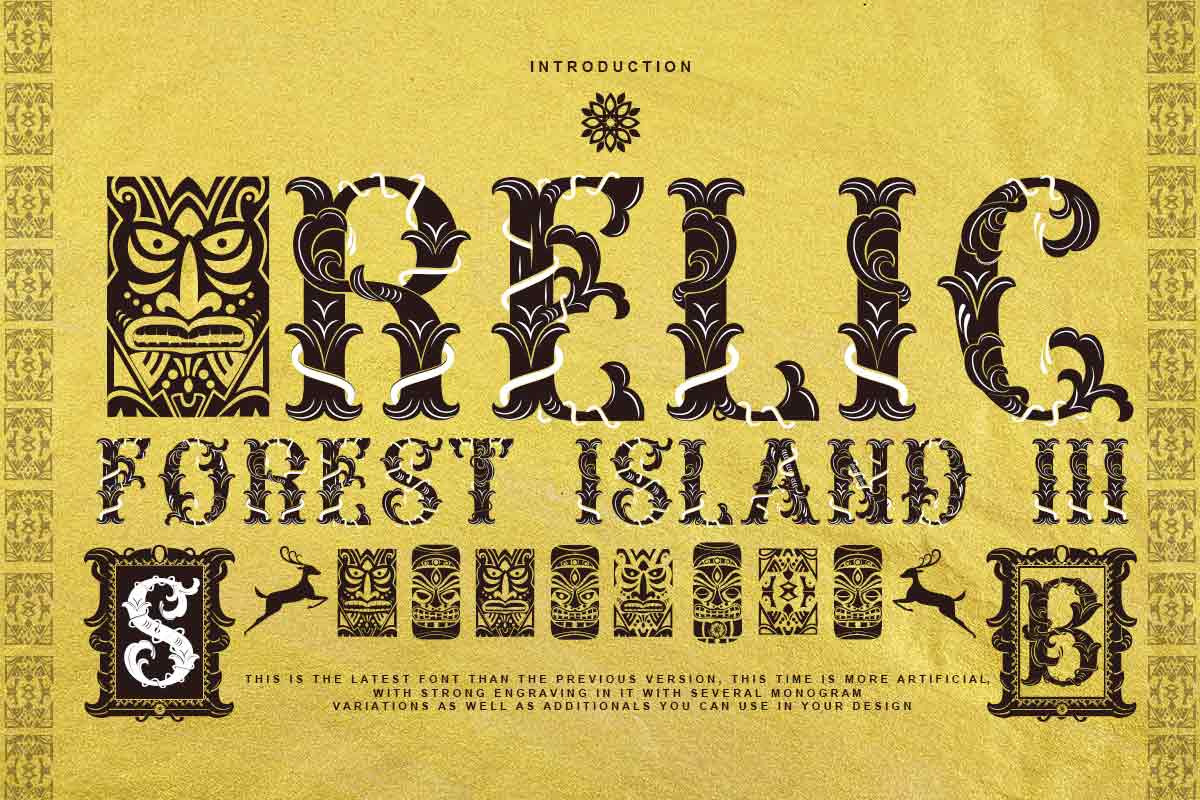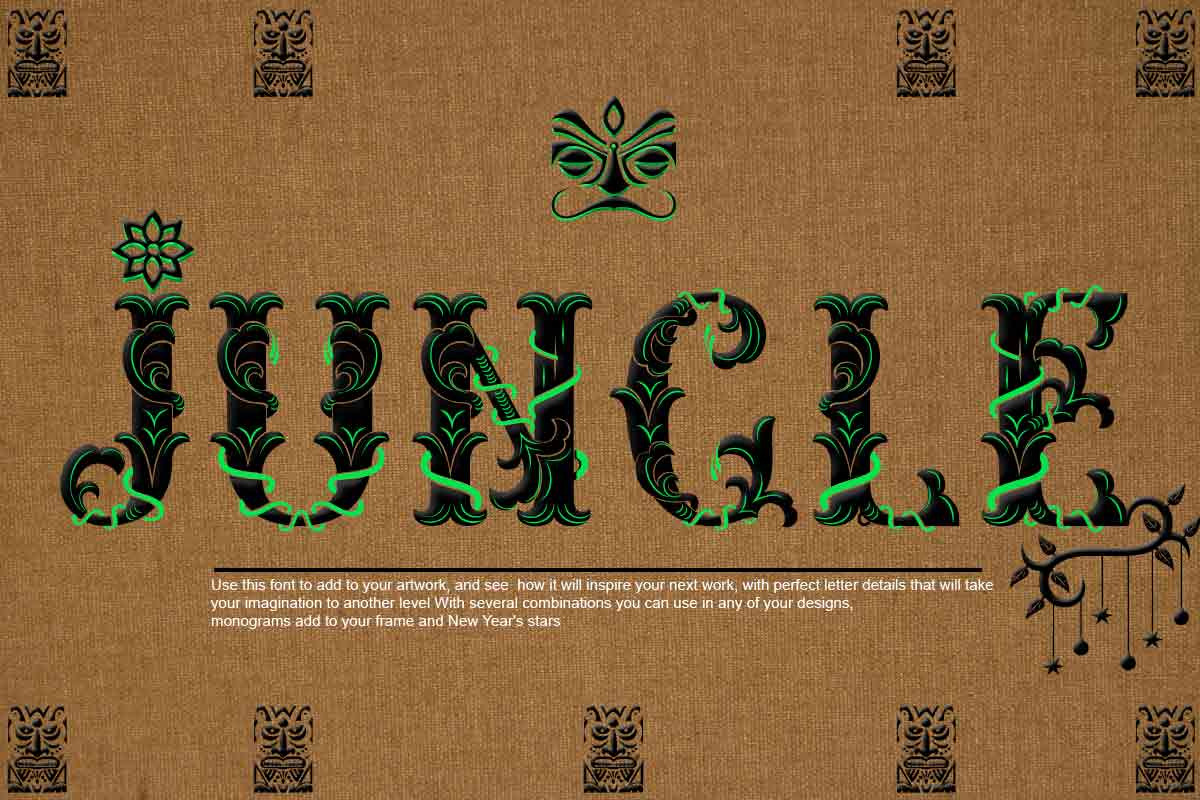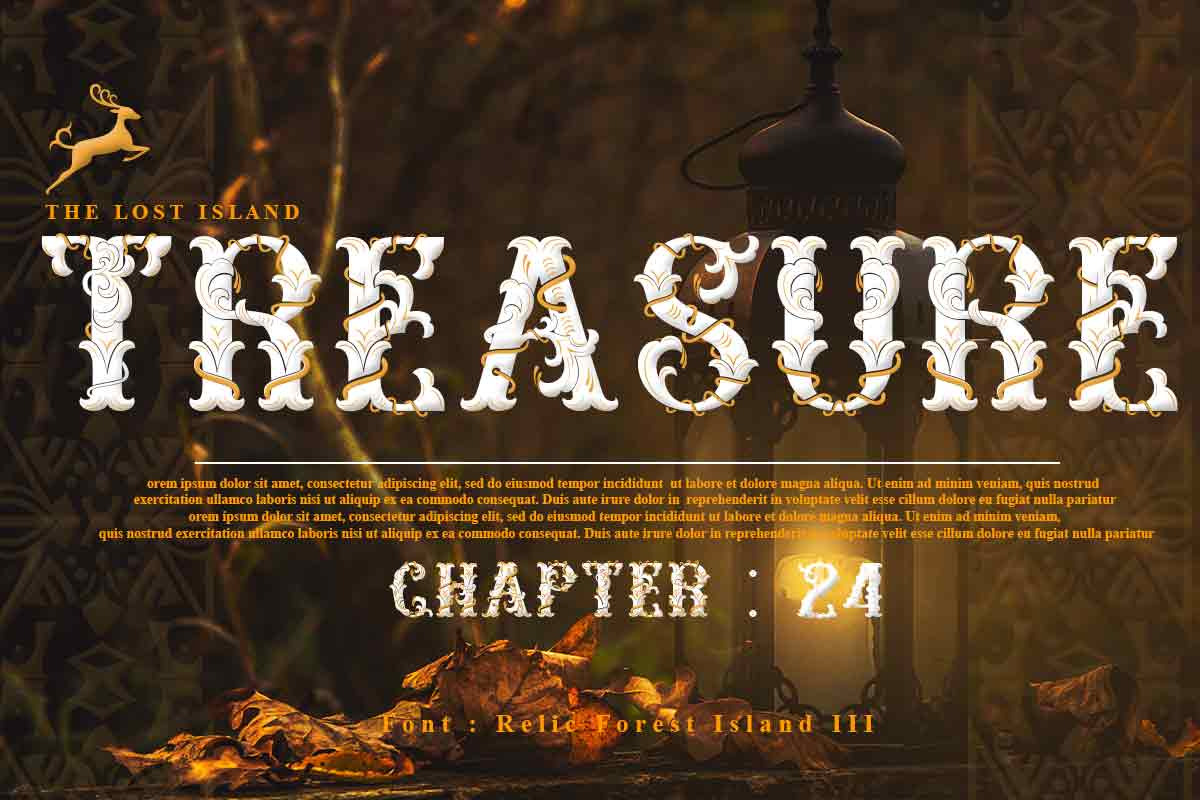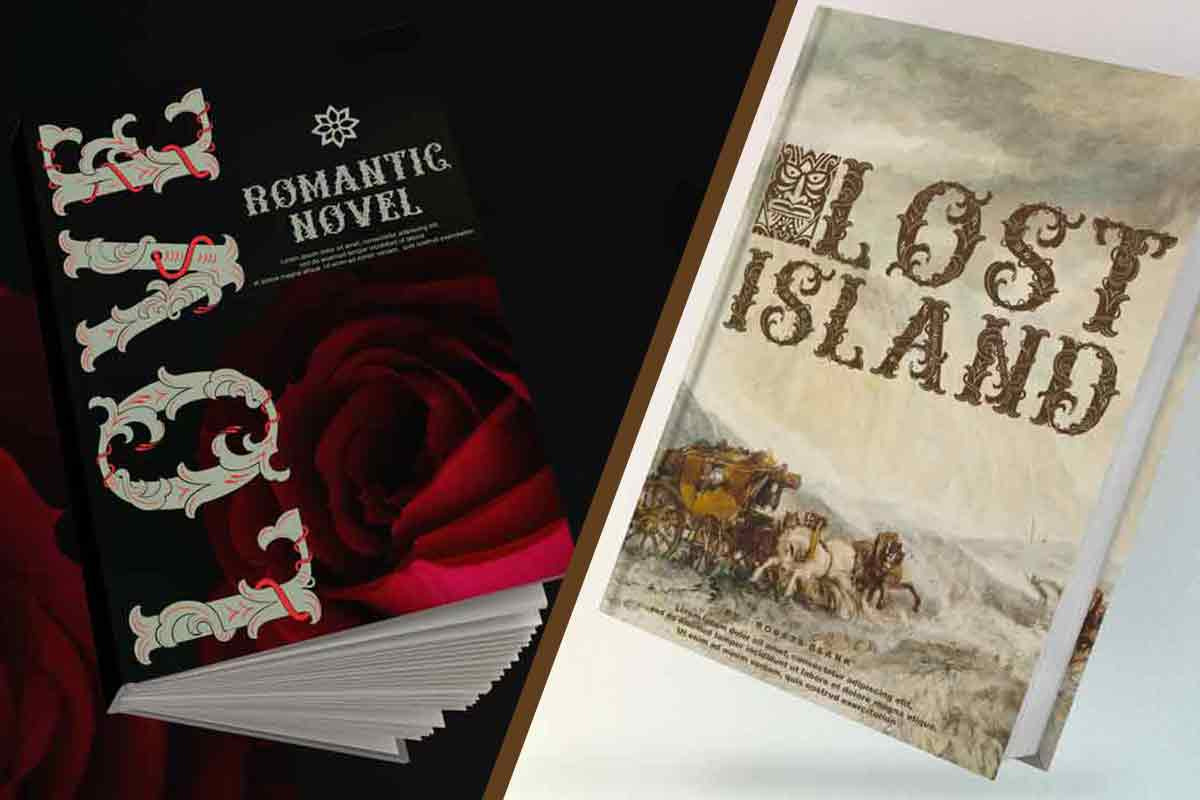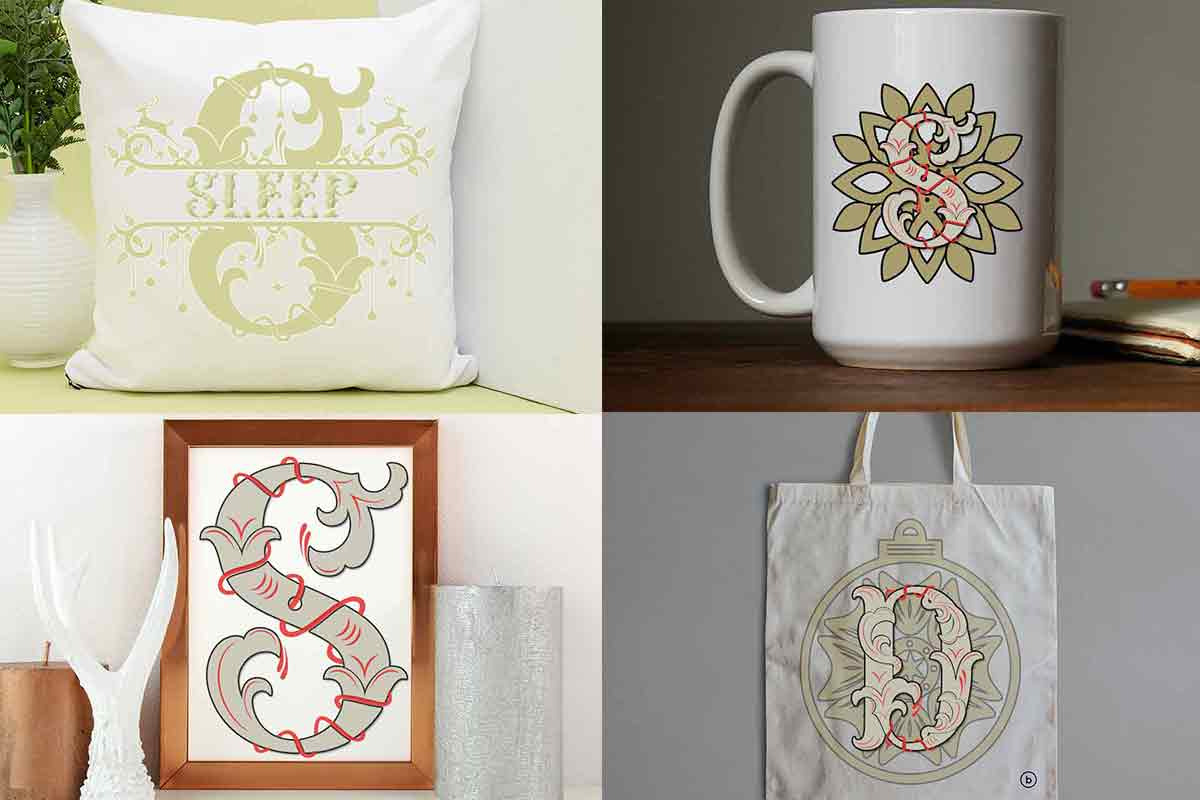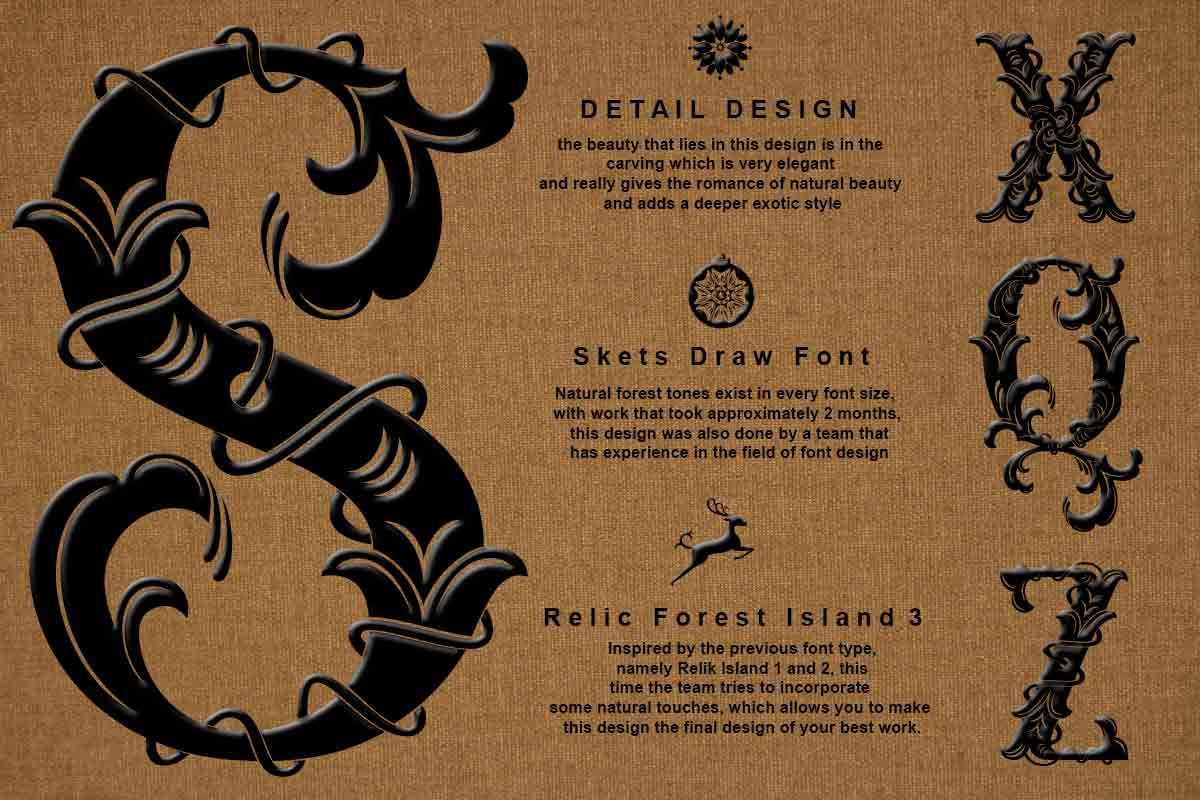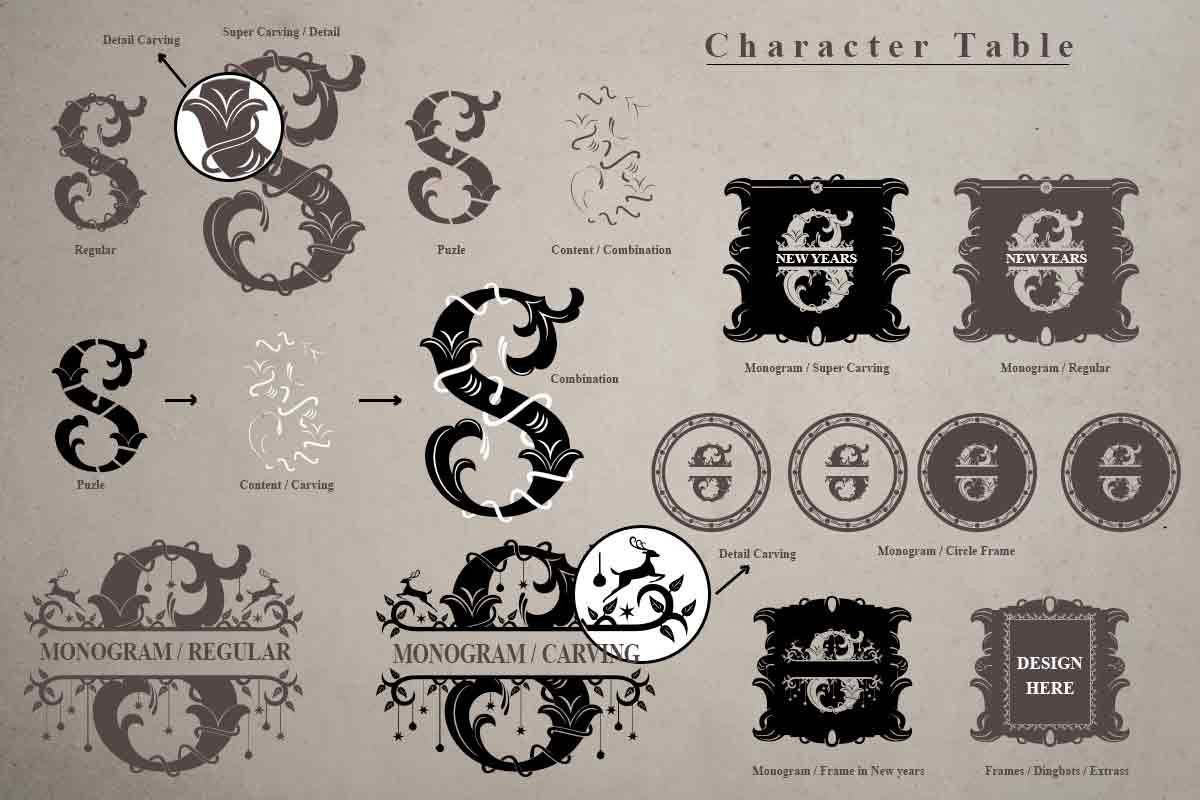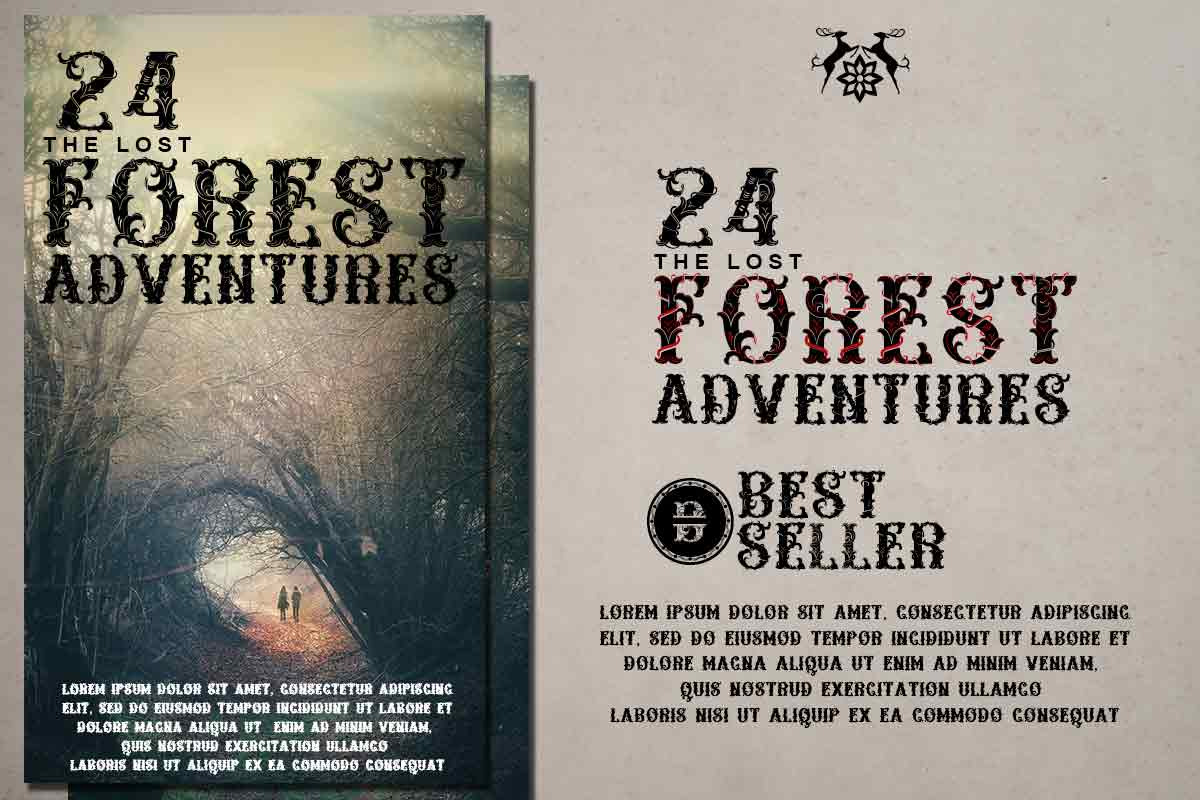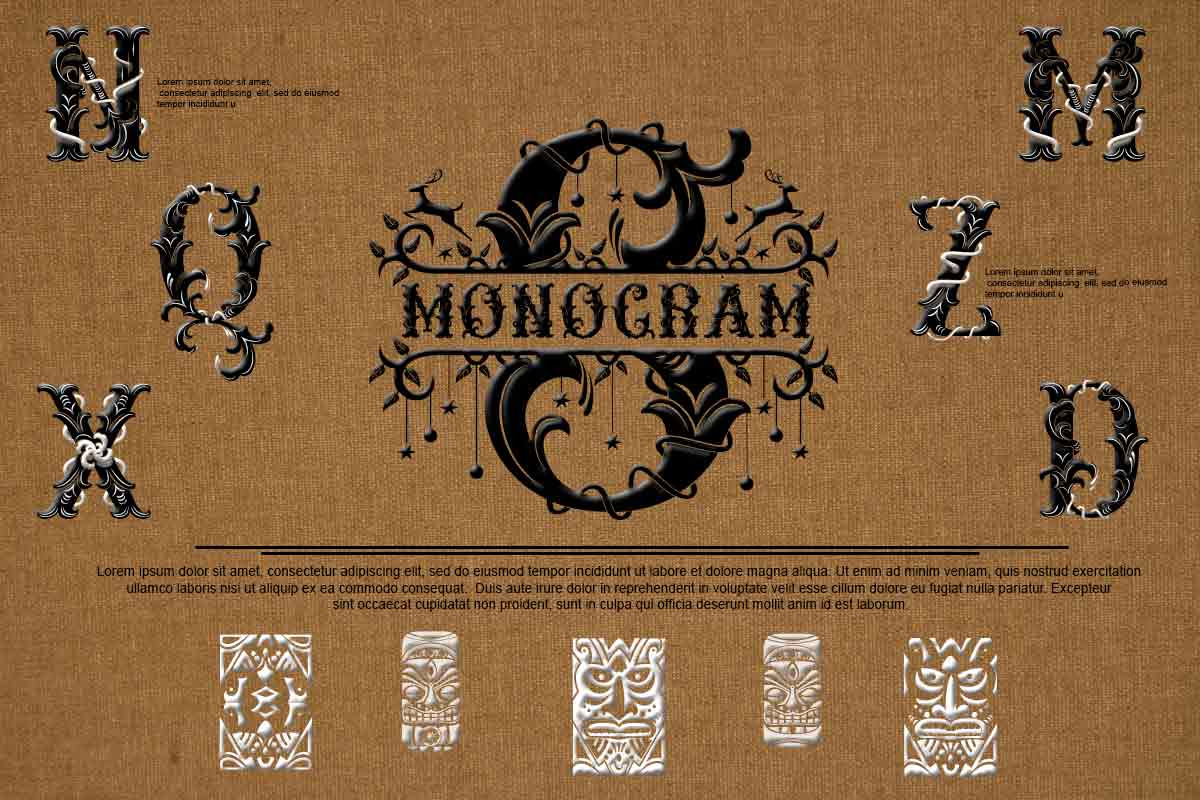
Relic forest island III,
Relic forest island III, This is the newest font from the previous generation, Relic island I and Relic Island II, this design comes with a more detailed touch with very charming carvings, comes with several families that you can make your best design choice for later this year and in the future, with several monograms and families that you can choose according to your design, this design will add inspiration to your project, and see, how it will work for you, and make this font your best choice thank you very much